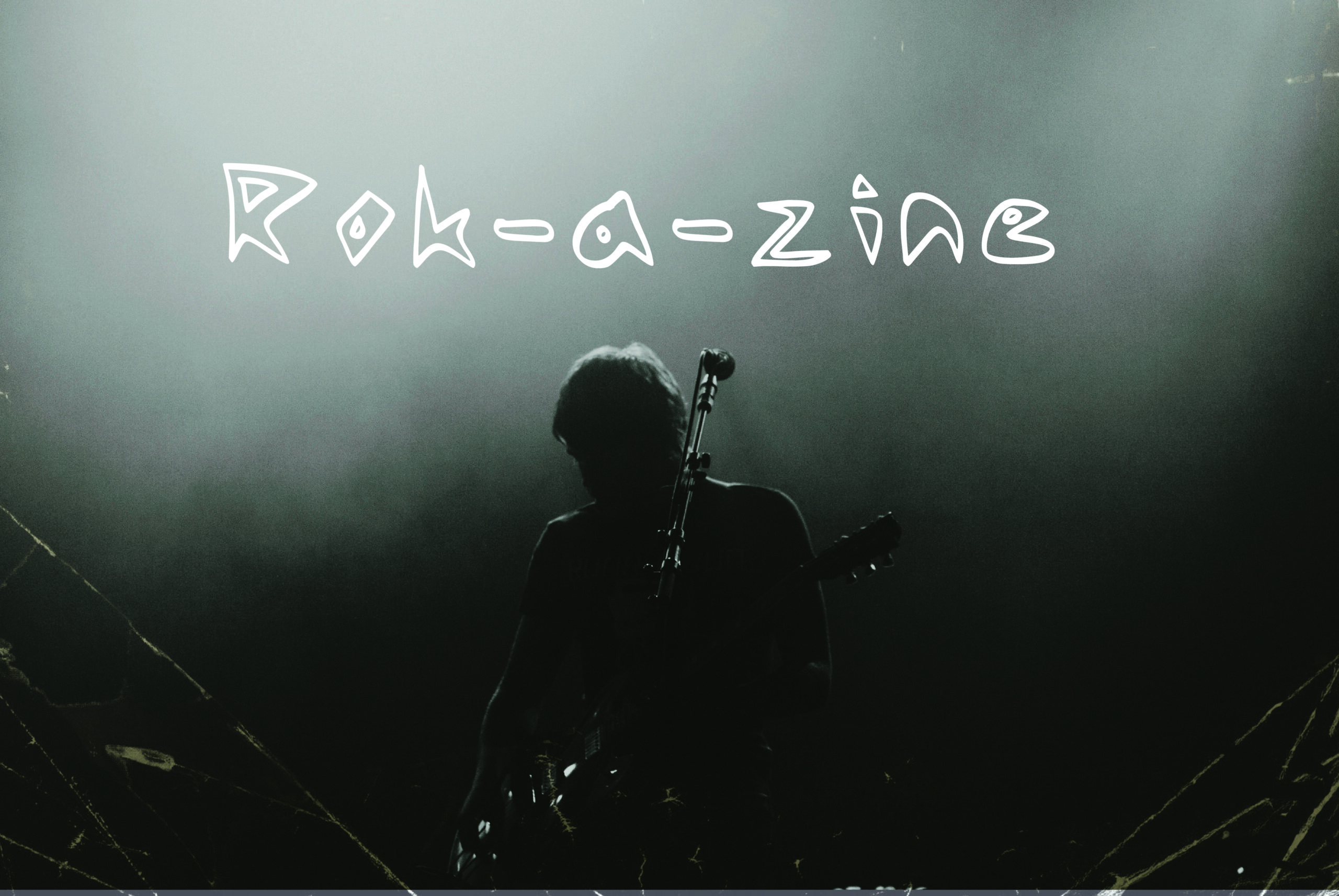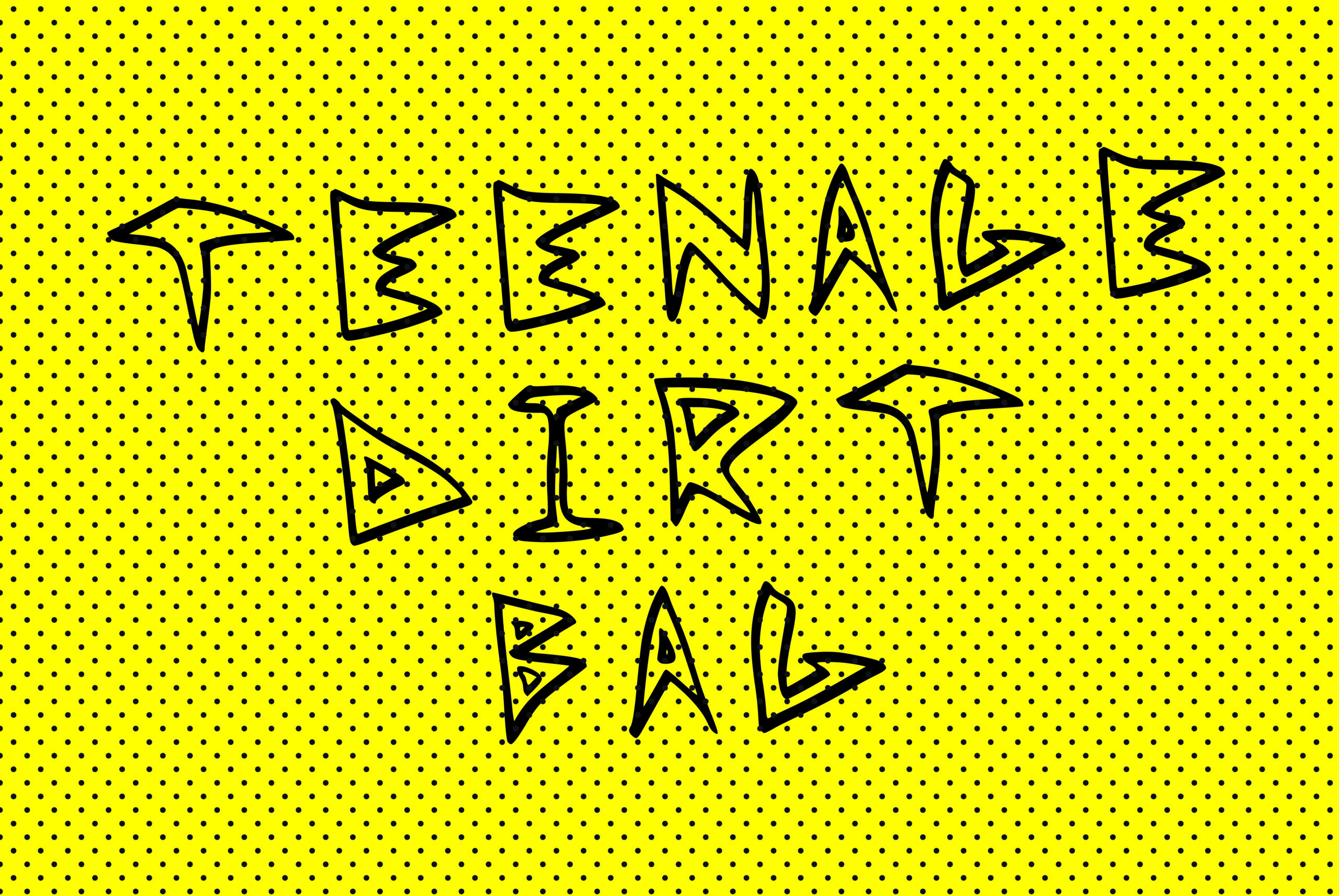
Rok-a-zine Font
About Rok-a-zine Font
“We love anything hat has a rough side to it. That’s Rok-a-zine. This font is cute and pasted, rushed, handwritten, and artsy so you can explore and emphasis the grit of your designs. This sharp font was crafted with a nod to hand made zines; if you haven’t come across a zine, these publications are made out of a total passion that is very punk and rrriot in nature, with a DIY feel given their low cost production. To copy the zine style, we came up with this font. Love something? Get creating, we hope Rok-a-zine gets those crafty juices flowing, ROCK ON!”